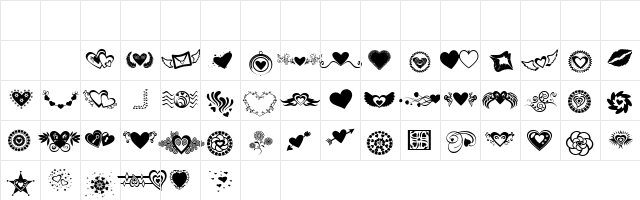
SexyRexy-Smitten Regular Free Font
SexyRexy-Smitten Regular
Design Context for SexyRexy-Smitten
SexyRexy-Smitten is a composed and adaptable typeface that performs quietly and consistently across a wide range of design contexts.